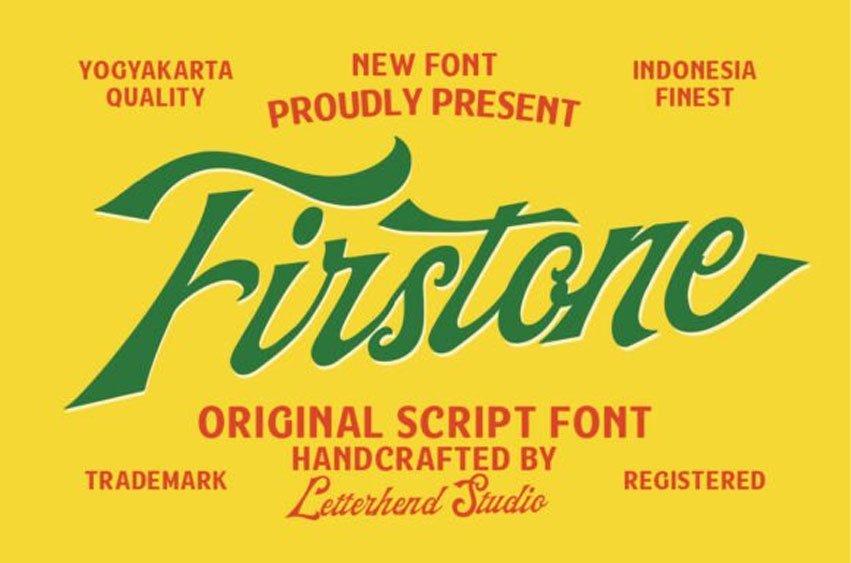
Firstone Font is a bold retro script rooted in mid-century sign painting and ballpark lettering. It’s connected strokes sweep with a confident rightward slant, balancing chunky downstrokes with tapered returns for a lively rhythm. Capitals open with athletic swashes—note the long entrance on F—while the t carries a wide cross stroke that glides into the next letter, creating natural underline moments. Rounded counters, smooth terminals, and a generous x-height keep words readable even at energetic angles.
A contrasting inline/outline treatment invites layered color and drop-shadow styling for depth. The texture feels handcrafted yet disciplined, ideal for logos, badges, packaging, menus, uniforms, and vintage-inspired posters. It conveys warmth, speed, and pride—perfect when you want handcrafted charisma with sports-heritage flair and billboard-ready punch. This font supports PUA encoding, providing seamless access to its full library of stylistic features.